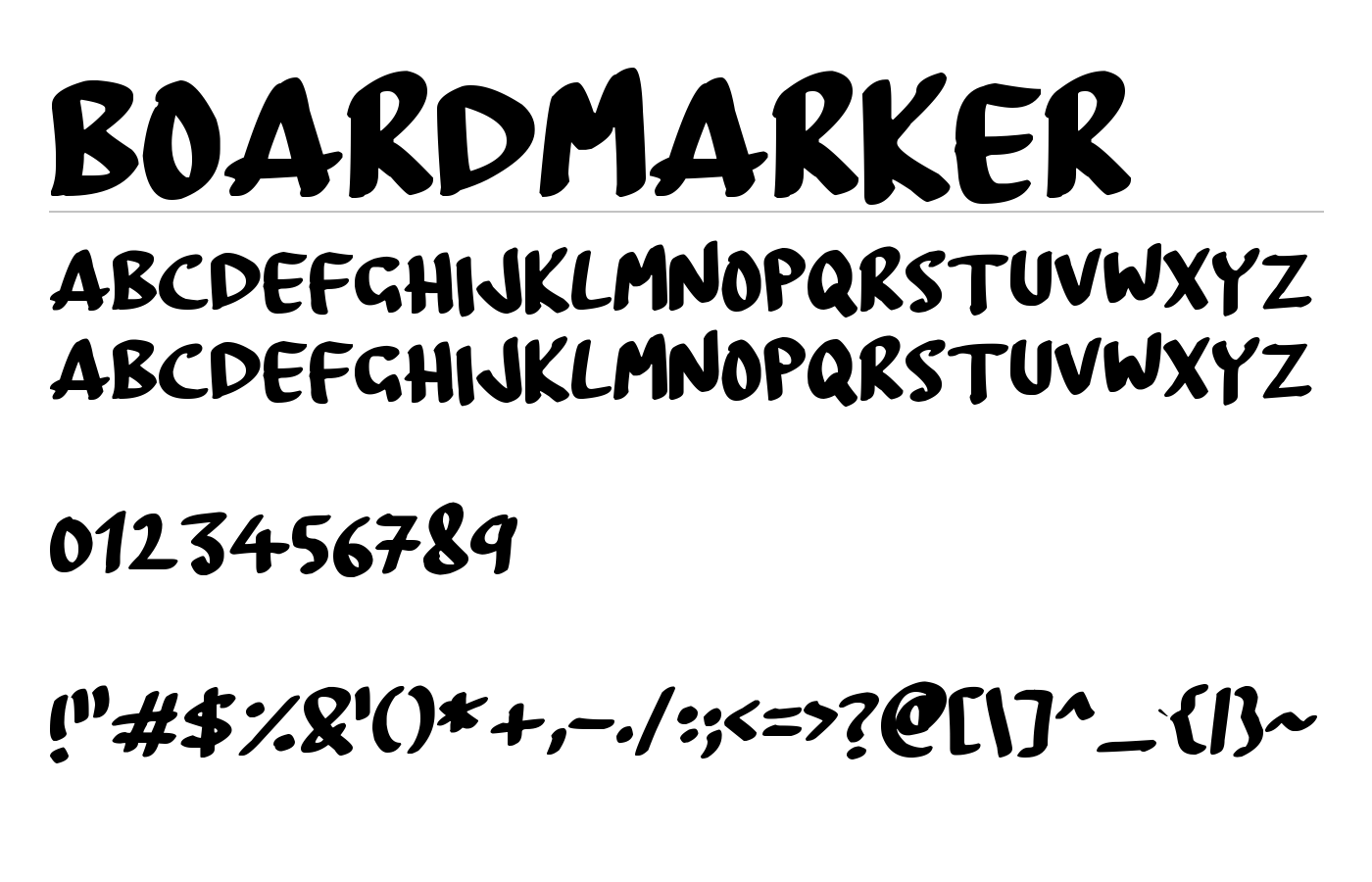
BoardMarker is a bold, playful handwritten font that captures the casual feel of thick marker strokes. Its slightly irregular letterforms and lively character make it perfect for informal, creative projects like posters, logos, and packaging that want to convey energy and personality. This font works best where a fun, approachable vibe is needed rather than formal or refined text.
BoardMarker Font